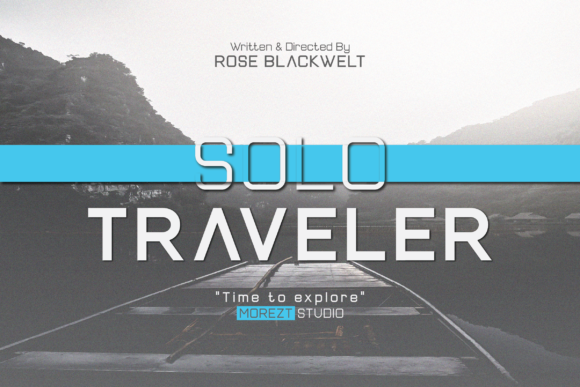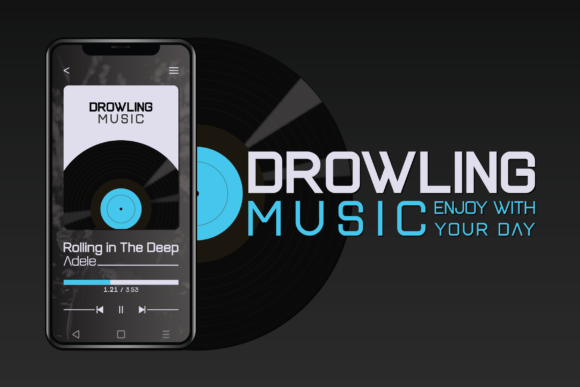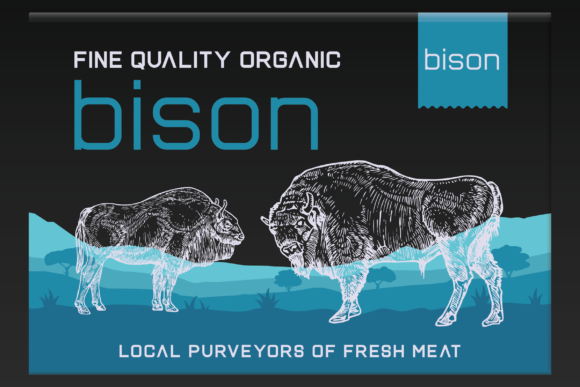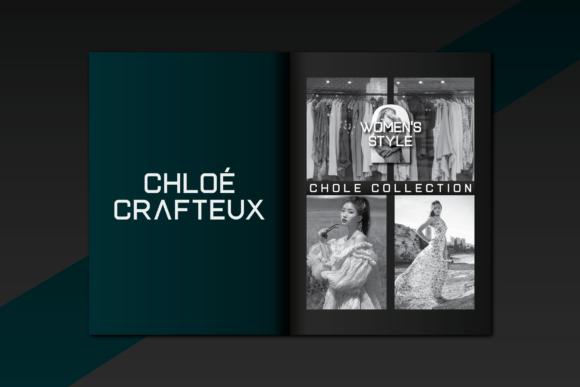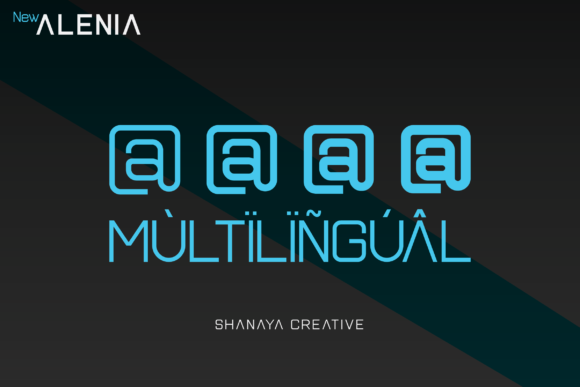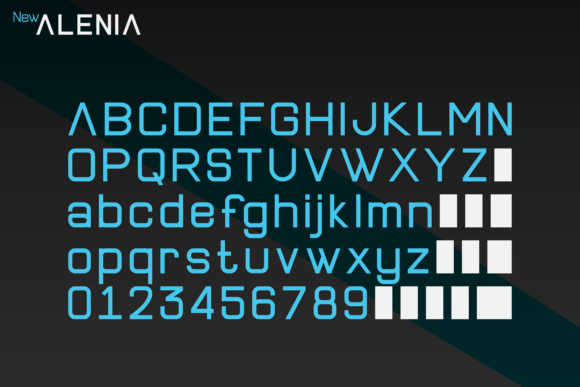
Introduction to New Alenia Font
Have you ever stared at a blank canvas, feeling like your creative project is missing that one special element to take it to the next level? You’ve got the concept, the vision, but something is holding you back from unleashing your full potential. This is where the right design resource can make all the difference.
Enter the New Alenia Font, a modern and sleek sans serif font that’s sure to elevate any poster, flyer, or print to new heights. With its clean lines and high-quality design, this font is a game-changer for designers looking to take their creative projects to the next level.
Whether you’re working on a free download or a paid project, the New Alenia Font is a valuable asset that’s sure to impress. Its transparent background makes it easy to use on any background, giving you endless possibilities for your designs.
Key Features of New Alenia Font
- High-quality design resource suitable for various creative projects
- Transparent background for seamless integration with any design
- Perfect for use in graphic design, web design, and digital art projects
- Available in 2 font styles (Regular and Bold) with scalable vector graphics
- Resolution-independent design for crisp and clear display on any device
Honest Review: New Alenia Font
As a designer, I’m always on the lookout for high-quality design resources to elevate my creative projects. Recently, I had the chance to try out the New Alenia Font, and here’s my honest review.
- ✨ Elegant and sophisticated design aesthetic, perfect for modern branding and marketing materials.
- ✨ Smooth, high-quality lines and curves that give it a premium feel.
- ✨ Suitable for a wide range of applications, from logos and business cards to presentations and digital displays.
- ⚠️ Limited font sizes and styles available, which may limit its versatility in certain design scenarios.
- ⚠️ No bold or italic font options, which could make it harder to use in situations where emphasis is needed.
Overall, I’m impressed with the New Alenia Font’s design and usability. While it may have some limitations, its high-quality aesthetic and transparent background make it a solid choice for designers looking for a reliable design resource. Whether you’re working on a personal project or a professional creative endeavor, the New Alenia Font is definitely worth considering.
Tips for Getting the Most Out of New Alenia Font
Experiment with different font sizes, colors, and combinations to create unique and eye-catching designs. You can also use New Alenia Font in conjunction with other design elements to add depth and visual interest.
Common Use Cases for New Alenia Font
New Alenia Font is ideal for creating professional-looking designs for a variety of projects, including business cards, brochures, posters, and social media graphics.